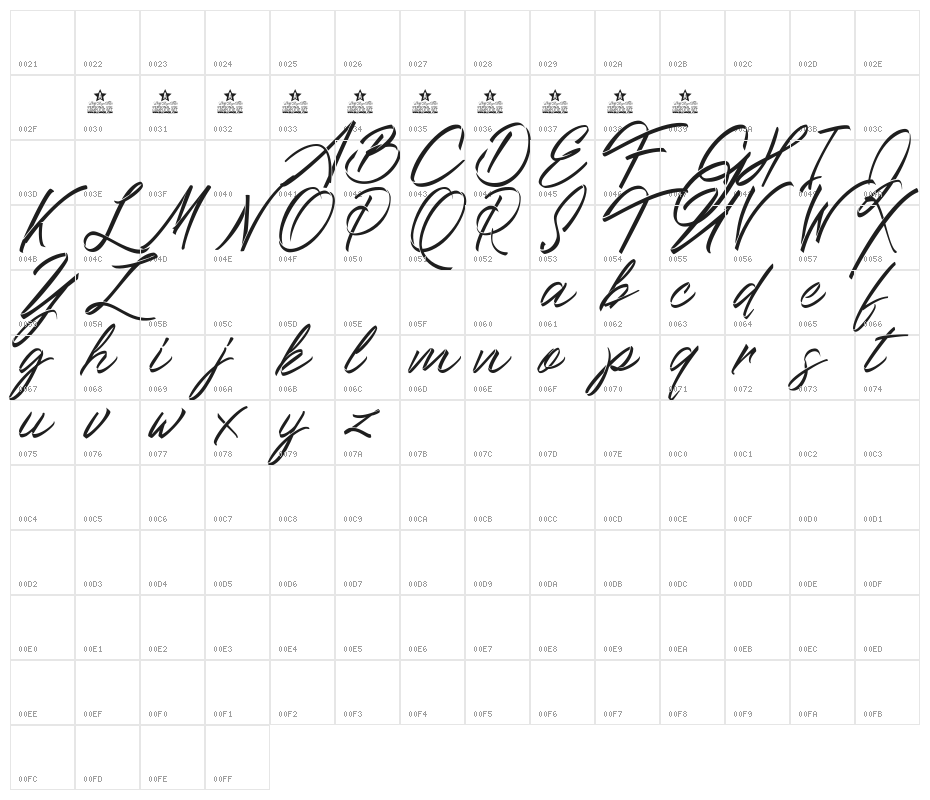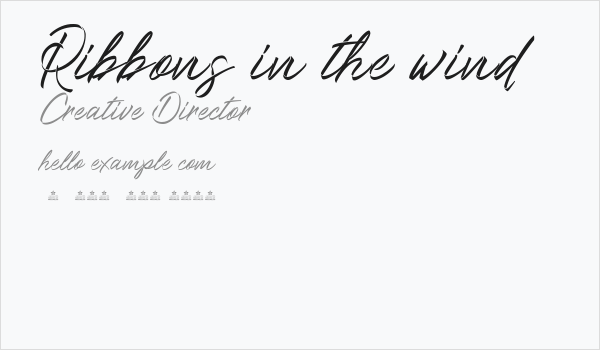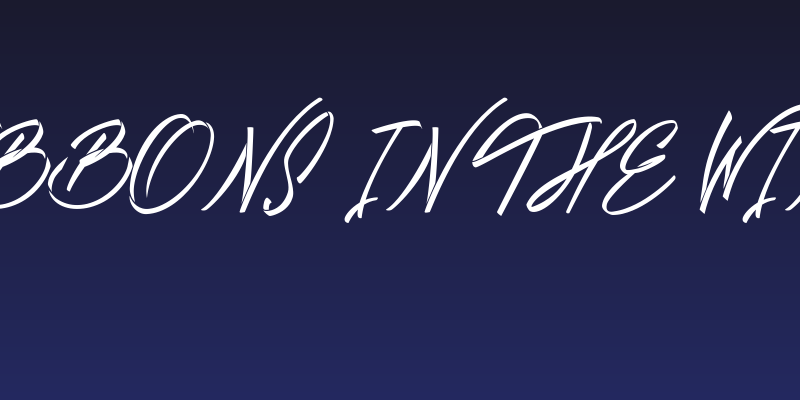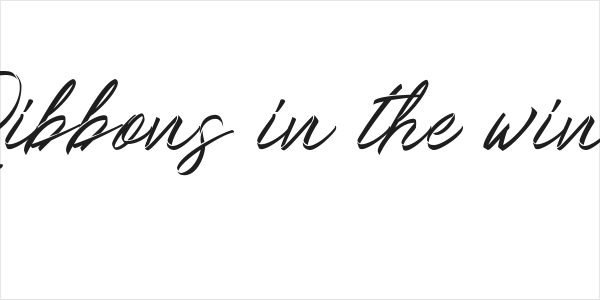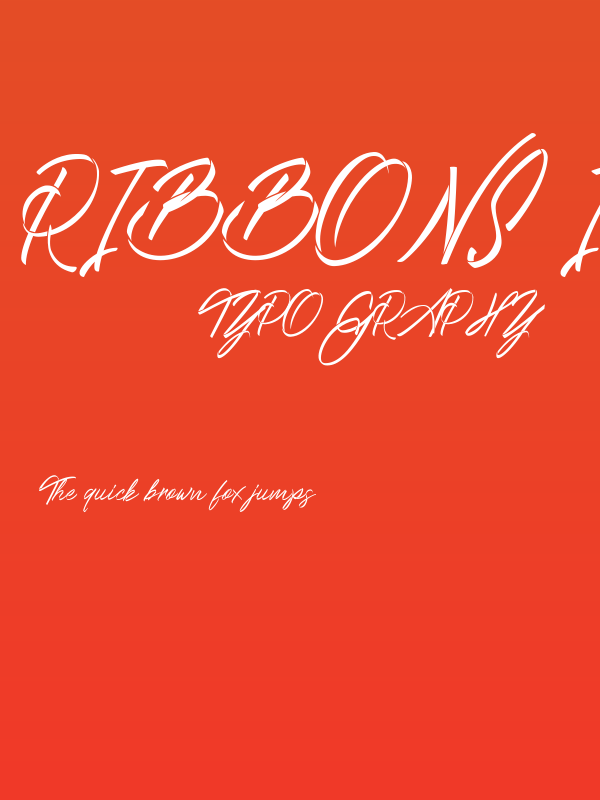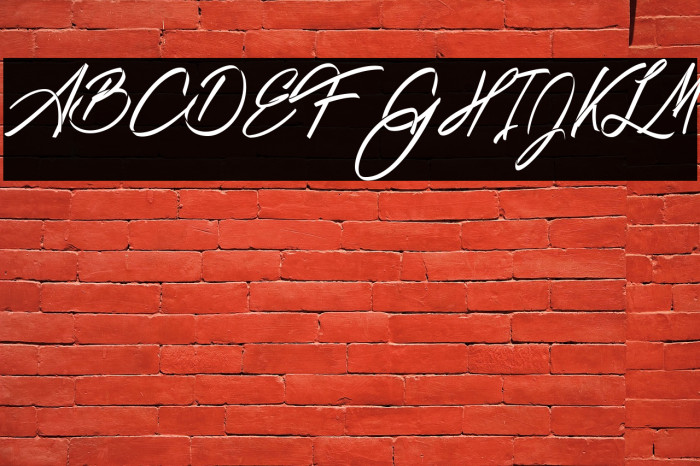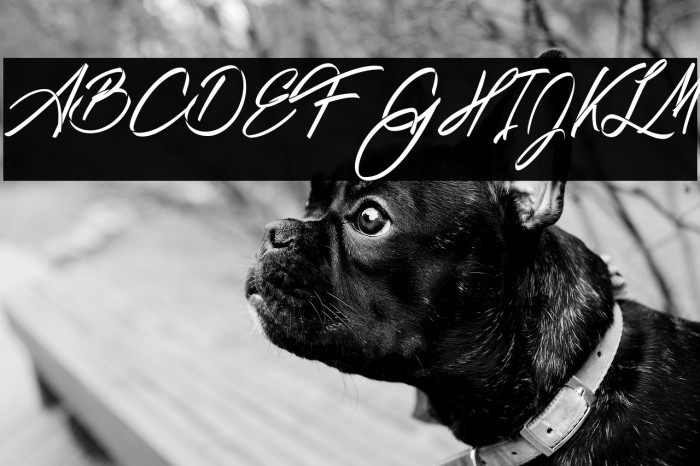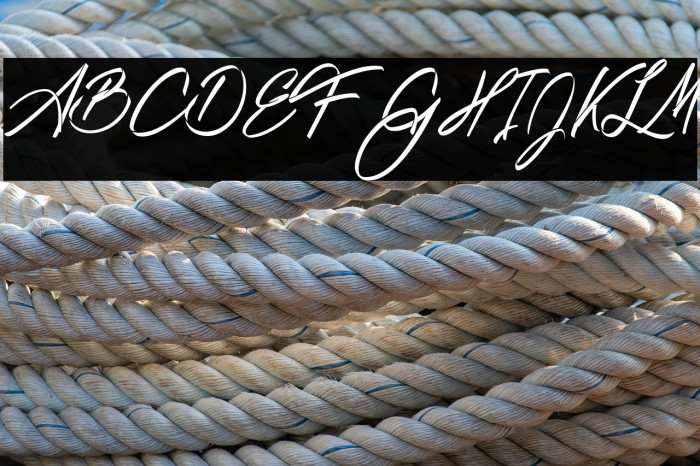
Ribbons in the wind Font
Ribbons in the wind Description
This font exudes a dynamic and flowing script style, reminiscent of elegant handwriting with a modern twist. The letters are interconnected with smooth, sweeping strokes that create a sense of motion and fluidity. The uppercase characters are bold and expressive, while the lowercase letters maintain a consistent rhythm and grace. The font's design is both artistic and legible, making it suitable for various creative applications. Its unique style captures attention and adds a personal touch to any project.